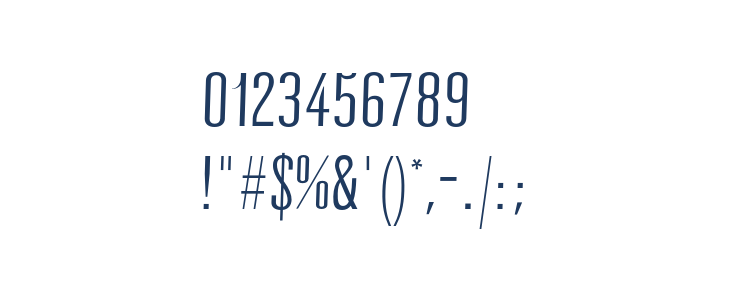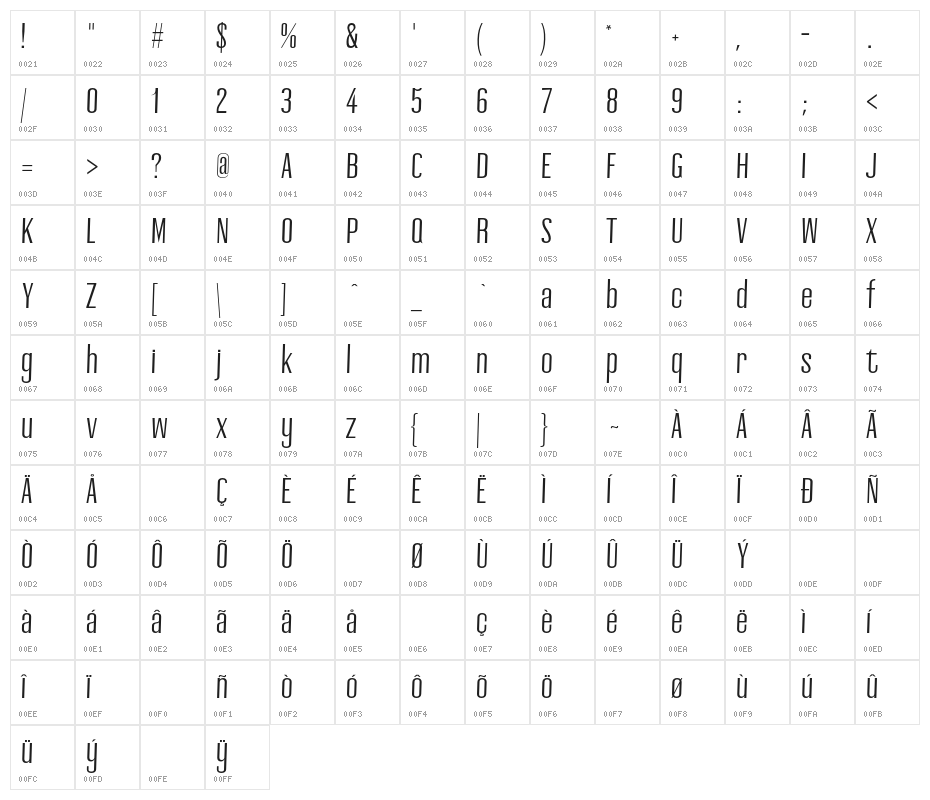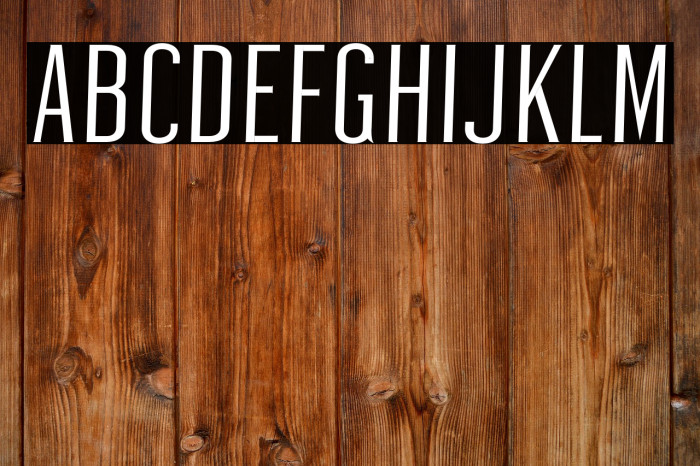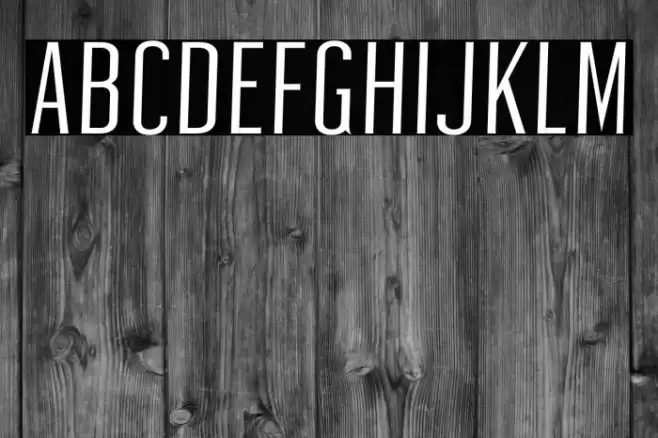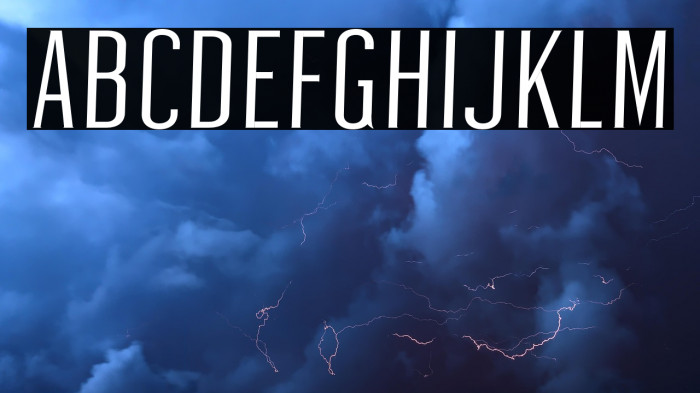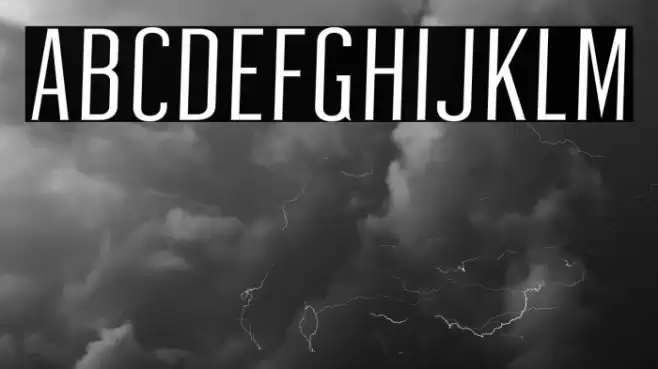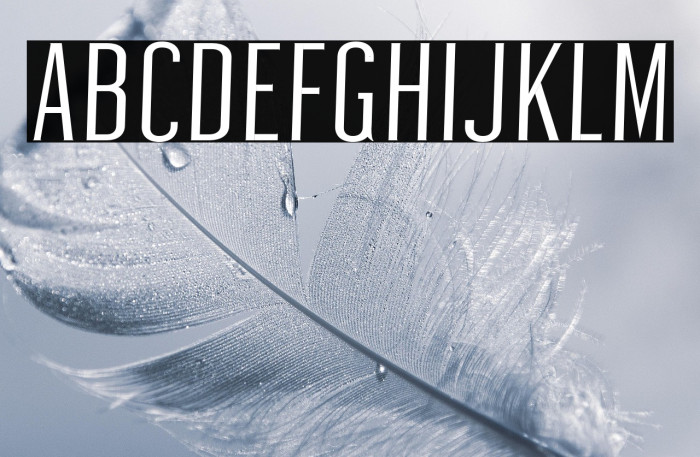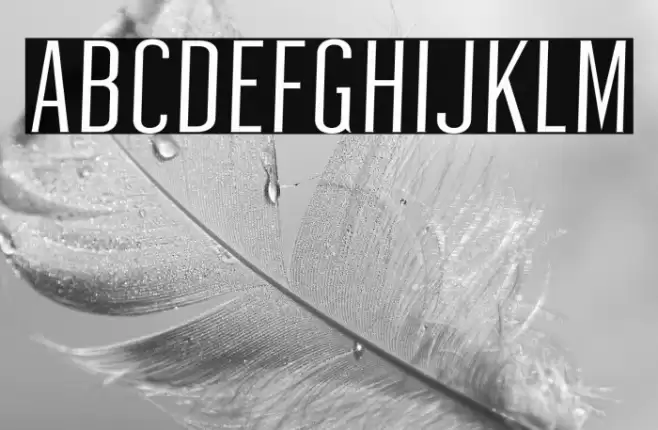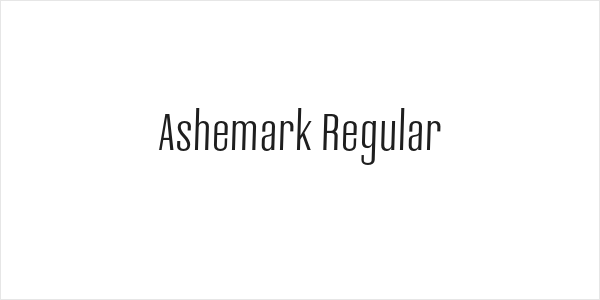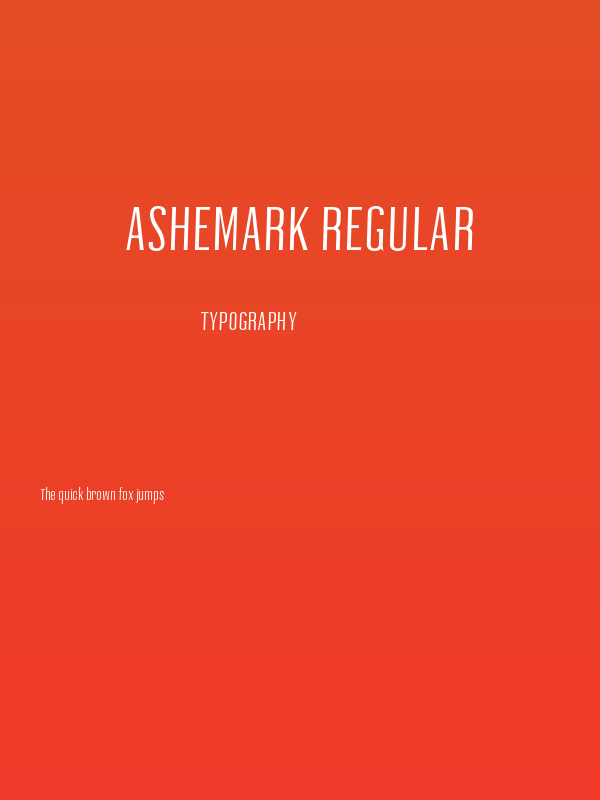
Ashemark Regular Font
Ashemark Regular Description
This font features a sleek and modern design with elongated characters and a condensed width. The uppercase letters are tall and narrow, giving a sense of elegance and sophistication. The lowercase letters maintain a consistent style, complementing the uppercase with their slender forms. Numbers are clear and legible, following the same condensed style. Special characters are well-defined, adding versatility to the font. The overall appearance is clean and professional, making it suitable for a variety of design applications.
| Use Case | Headlines, Logos, Editorial design |
| Proposed Projects | Ideal for branding, editorial design, and modern web interfaces. |